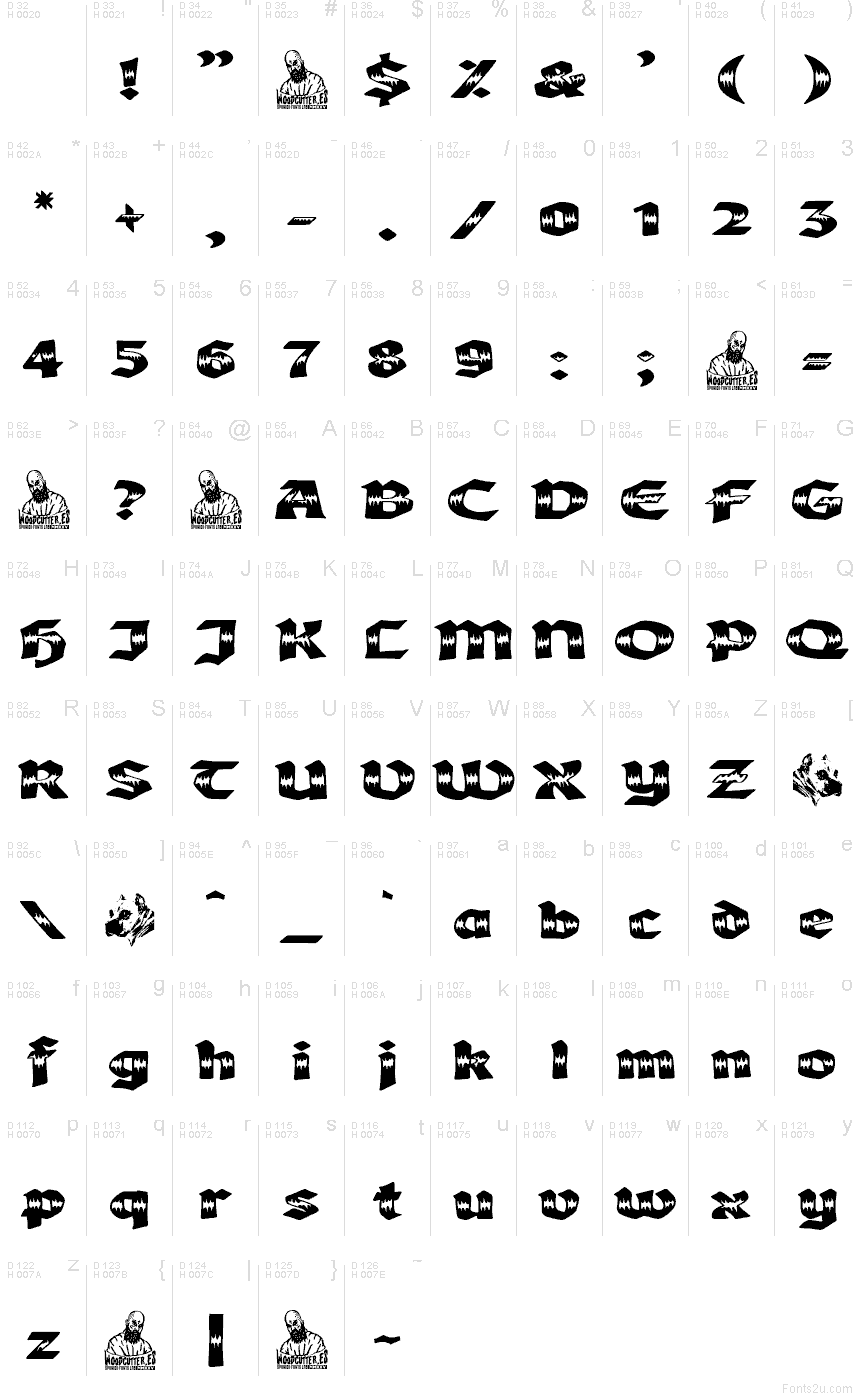
Criadero
Criadero font by Woodcutter is a free gothic typeface that oozes with creature-feature drama. Each letter feels clawed out of thick black ink, with jagged inner shapes that read like teeth or torn curtains, giving your words a feral, underground-club energy. The chunky, uneven silhouettes keep text bold and legible while still looking wild and unstable.
Using Criadero, you can instantly brand horror posters, Halloween flyers, haunted attraction signage, metal or punk band logos, edgy YouTube thumbnails, and zine covers. This free font thrives at large sizes where its rough edges and “bite marks” are easy to savor; pair it with a simple condensed sans for body copy so the artwork stays readable while Criadero growls in the headlines.